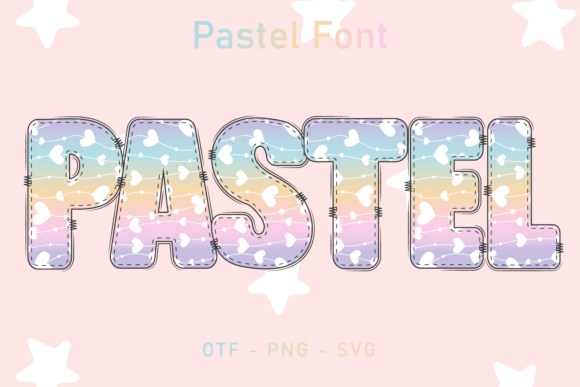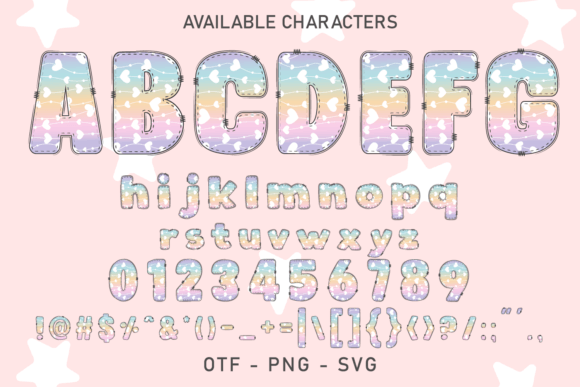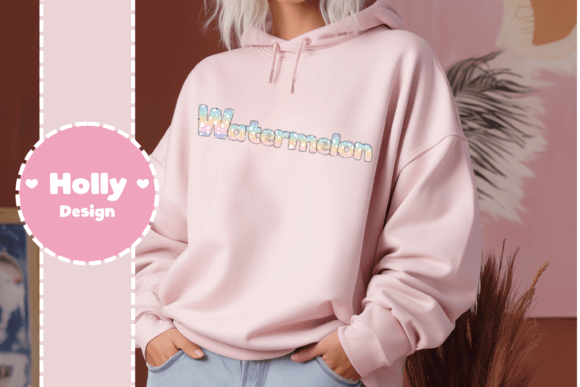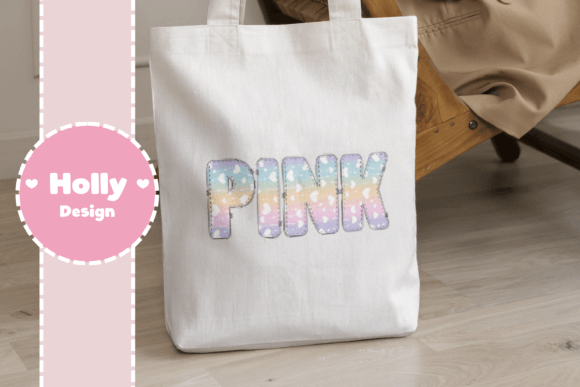
Pastel Love Font
About the Pastel Love Font
Get ready to be inspired by Pastel Love Font, a fresh and dynamic typeface for modern creators. Pastel Font is a lovely and beautifully designed color font. The font is hand drawn and its letters are full of patterns that represent the day of lovely. Choose from trendy handwritten, display, and decorative styles for invitations, logos, posters, and more.
Pastel Love Font excels in display applications such as logos, short headlines, and eye-catching posters where its decorative style and playful patterns shine. It’s ideal for branding projects targeting a young, feminine, or whimsical audience. However, its intricate detail and inconsistent letterforms make it unsuitable for body text or UI elements requiring high readability.
Pairing Pastel Love with a clean sans-serif like Open Sans for body copy creates a strong contrast, balancing the font’s decorative nature with clear, legible text. Alternatively, a classic serif like Garamond could add a touch of sophistication for a more elegant feel. Avoid pairing it with other highly decorative or script fonts, which would create visual clutter.
The overall personality is cheerful and romantic, conveying a sense of lightheartedness and charm. Its hand-drawn quality adds a personal, handcrafted touch, making it perfect for projects emphasizing warmth and approachability.